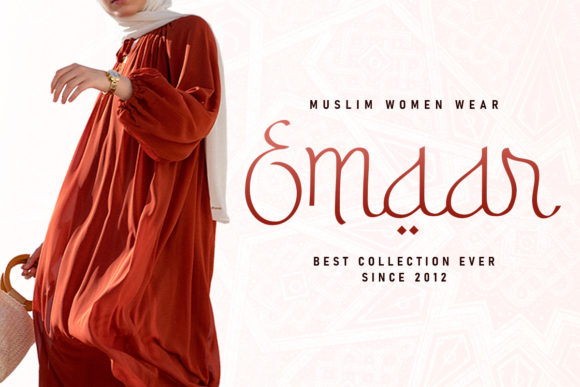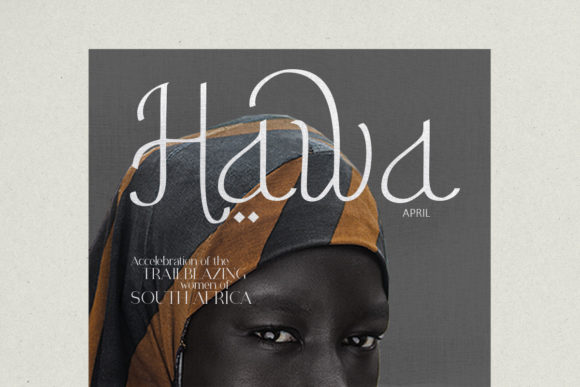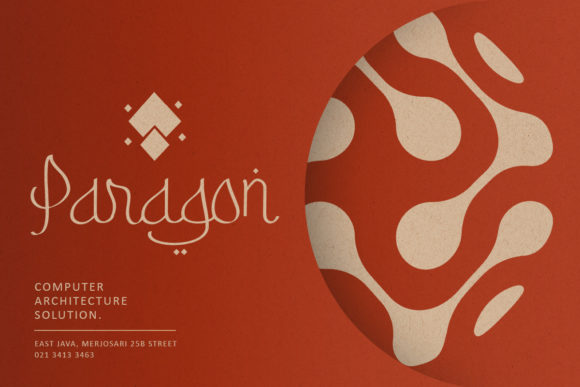
Introduction to Arabian Fairs Font
Arabian Fairs is a light and minimal Fauxlang Arabic Font.
Truly inspired by the Arabic alphabet, this font will make your design looks more Arabian yet readable for everyone You can use this font for any purpose such as branding, logo design, wedding invitations, or even occasional season such as Ramadan and any Islamic Holiday.